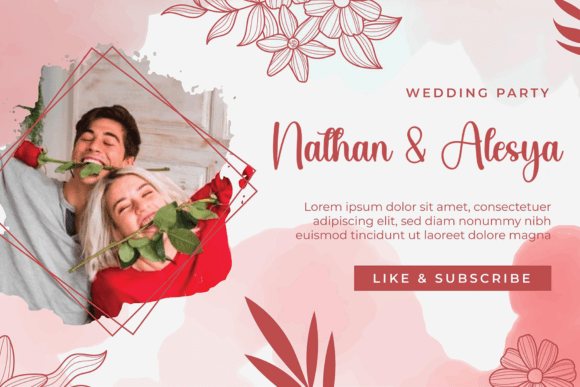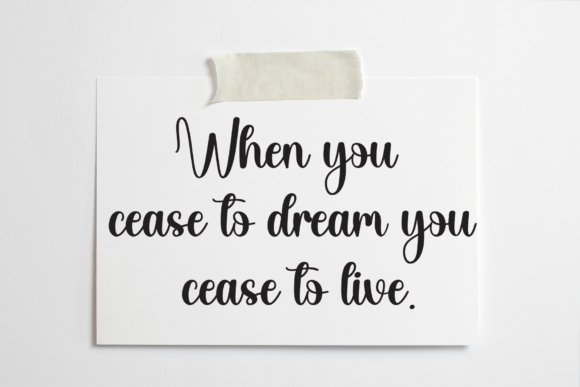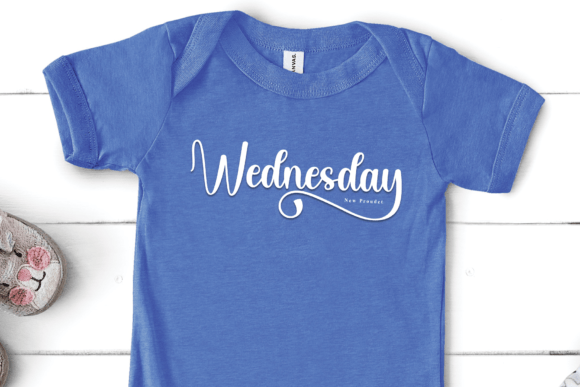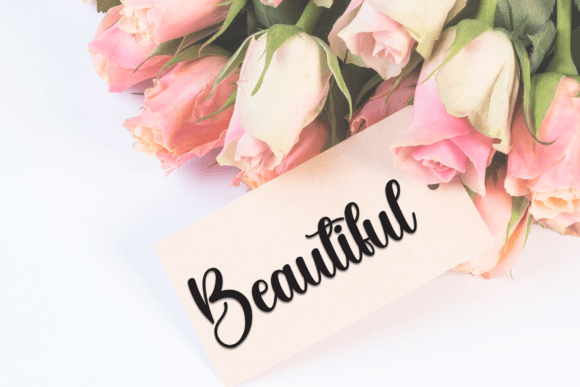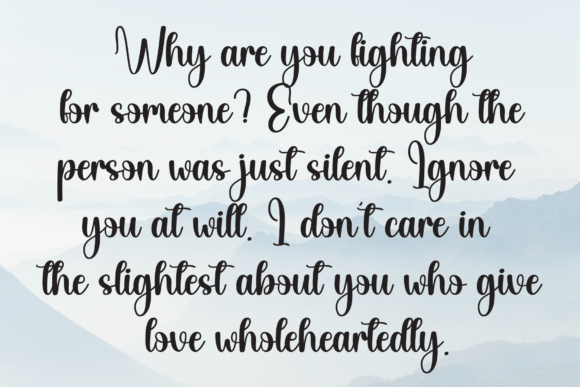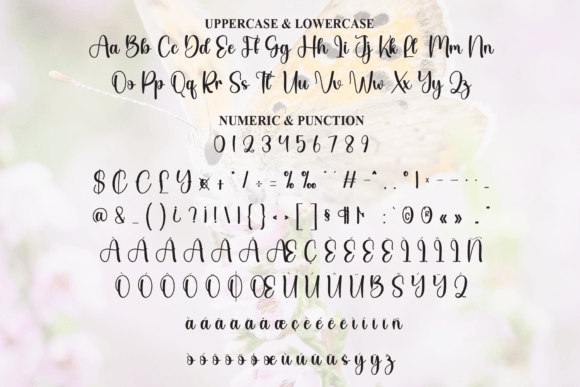
Enter the Butterfly Font, a stylish handwritten script that exudes elegance and charm with its flowing, graceful curves. This font is perfect for invitations, logos, and branding, adding a personal and sophisticated touch to any design. Whether you’re a seasoned designer or just starting out, the Butterfly Font is a valuable asset to have in your toolkit.
Key Features of Butterfly Font
- Unique Characteristics: Features a whimsical, hand-drawn design with subtle flourishes and curves, creating a sense of elegance and sophistication.
- Script and Language Support: Supports a wide range of languages, including Latin, Greek, Cyrillic, and many others, making it a versatile choice for global applications.
- Kerning and Ligatures: Includes carefully crafted kerning and ligature pairs to ensure smooth text flow and optimal readability.
Designer Review: Butterfly Font
Overall, I think the Butterfly Font is a beautiful, whimsical choice for any project. ✨ The elegant, hand-drawn style captures the essence of a butterfly’s delicate wings, making it perfect for designs that require a touch of softness and playfulness.
Here are some of the things that I love about this font:
- ✨ Elegant, hand-drawn style that adds a touch of sophistication
- ✨ Wide range of characters, including uppercase and lowercase letters, numbers, and punctuation
- ✨ Supports multiple languages, making it a great choice for global projects
However, I do have a few concerns about this font:
- ⚠️ Limited in its bold and condensed styles, which may not be suitable for all projects
- ⚠️ Some characters may be difficult to read at smaller font sizes, especially in digital environments
Overall, I think the Butterfly Font is a lovely choice for designers who want to add a touch of whimsy to their projects. While it may have some limitations, its unique style and versatility make it a great option for the right projects.
Tips for Getting the Most Out of the Butterfly Font
For a more dramatic effect, consider using the font in all caps or with a bold weight. You can also experiment with different font sizes and colors to create visual interest. Additionally, consider pairing the font with other whimsical fonts or graphics to create a cohesive and eye-catching design.
The Butterfly Font is perfect for designs that require a touch of whimsy and playfulness. Common use cases include:
- Floral-themed designs and illustrations
- Handmade crafts and DIY projects
Alternatives to Butterfly Font
Great Vibes is a beautiful, elegant script font that is perfect for adding a touch of sophistication to your designs. It has a more refined and polished look compared to Butterfly Font, making it suitable for high-end branding and advertising materials.
Comparison: Great Vibes is more formal and less playful than Butterfly Font, but still conveys a sense of elegance and refinement.
Carolyna Pro is a modern, cursive script font that is ideal for creating a sense of luxury and glamour. It has a more fluid and dynamic feel compared to Butterfly Font, making it suitable for high-end fashion and beauty brands.
Q: What is the recommended font size for the Butterfly Font?
The recommended font size for the Butterfly Font is between 12-24 points. However, this can vary depending on the specific design and intended use. For optimal readability, we recommend using the font at a minimum size of 14 points for body text and 18 points for headings.